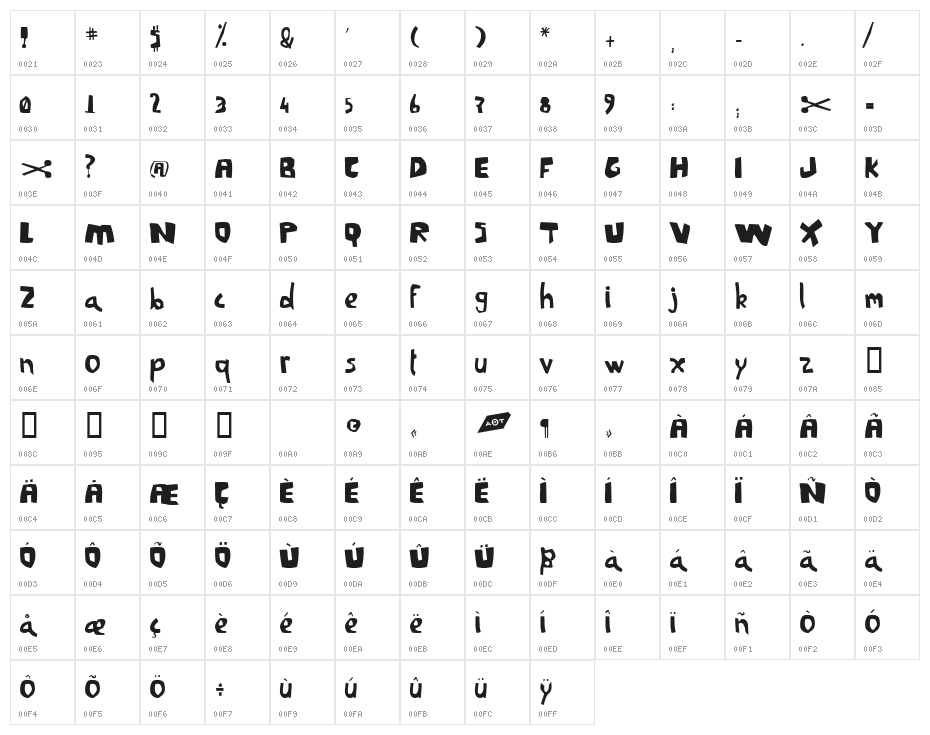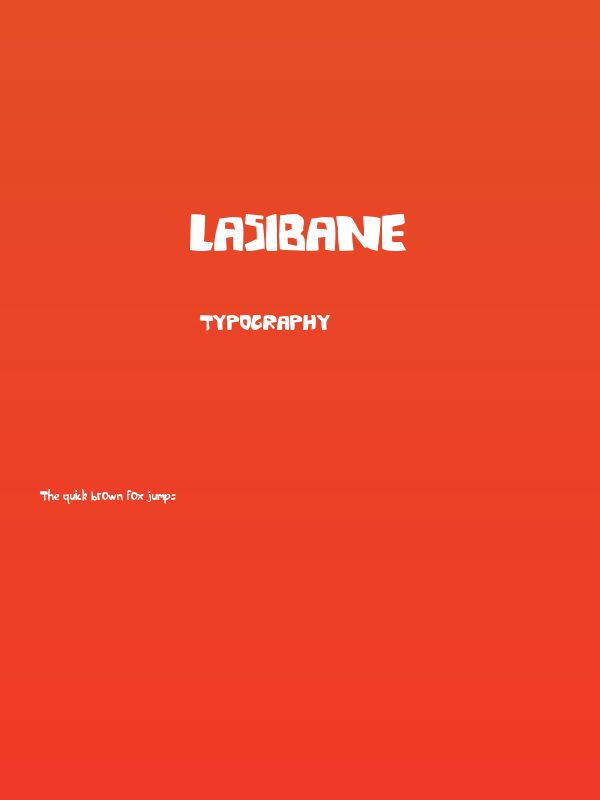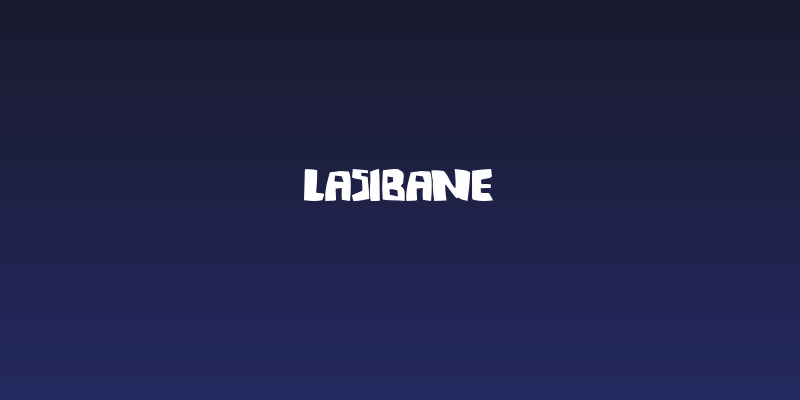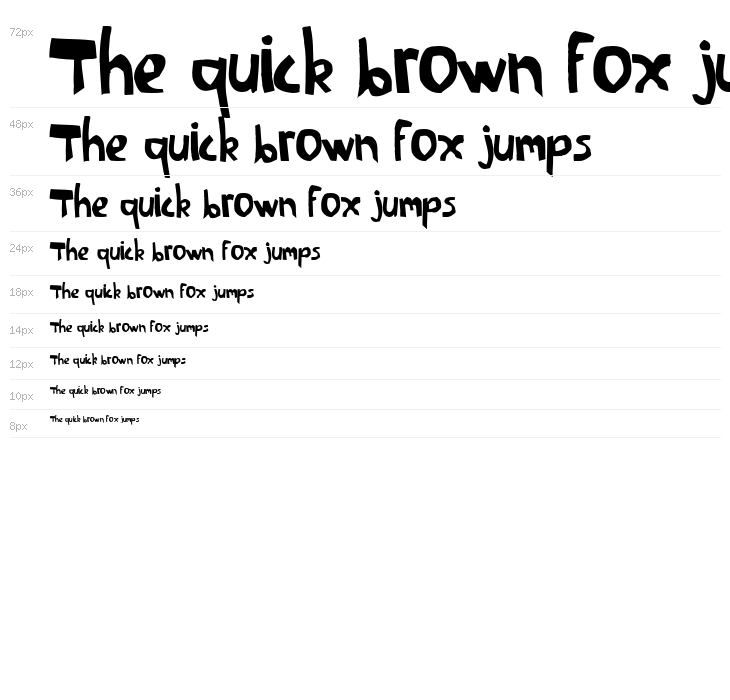
LaSibane Font
LaSibane Description
This font features a bold and playful design with a hand-drawn aesthetic. The characters have an irregular, slightly distorted appearance, giving them a whimsical and artistic feel. The uppercase letters are particularly bold and angular, while the lowercase letters maintain a more fluid and organic shape. The numerals and special characters follow the same playful style, making the font suitable for creative and informal applications. The overall look is dynamic and eye-catching, ideal for projects that require a touch of creativity and fun.
| Overall Style | Playful, Artistic |
| Use Case | Headlines, Posters, Branding |
| Proposed Projects | Ideal for children's books, comic strips, playful branding, and creative posters. |